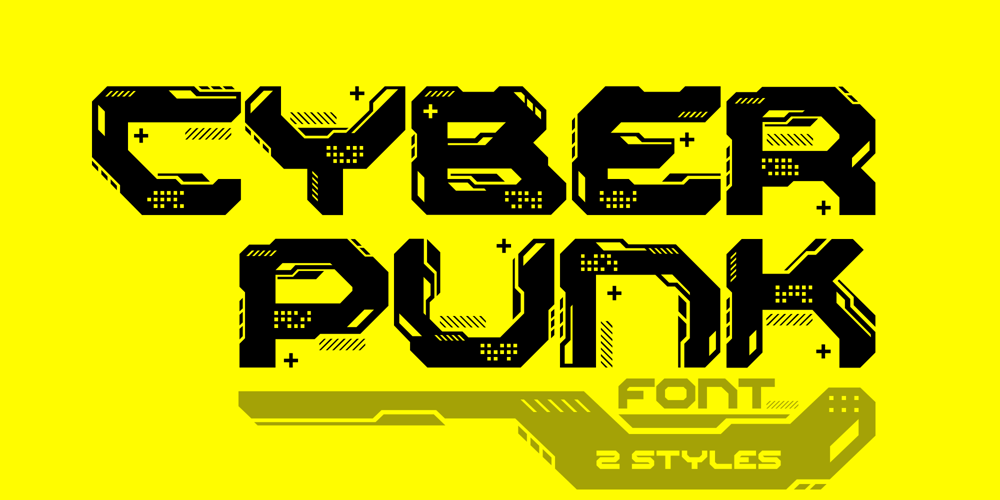
Cyberpunk Style Font Family was designed by Dmytro Poliakh and published by Sentavio. Cyberpunk Style contains 2 styles and family package options. Cyberpunk Style font creates hi-tech cyberpunk and futuristic atmosphere and style.It is designed for header ready-to-use.Use it in your projects in such areas as robots & androids, cyberpunk, hi-tech, future, virtual reality, space, army, games and many others.—It consists of two styles: Elements & Clean (with and without small design elements). You can combine and mix them to get some new result.